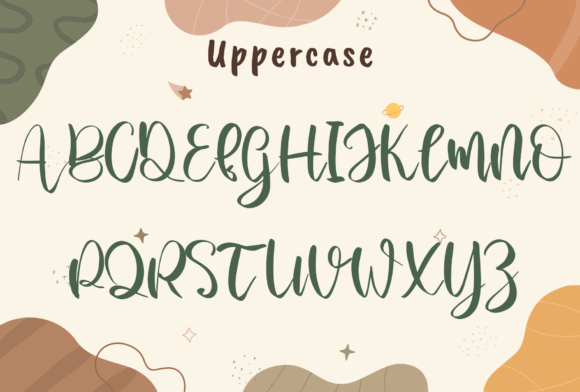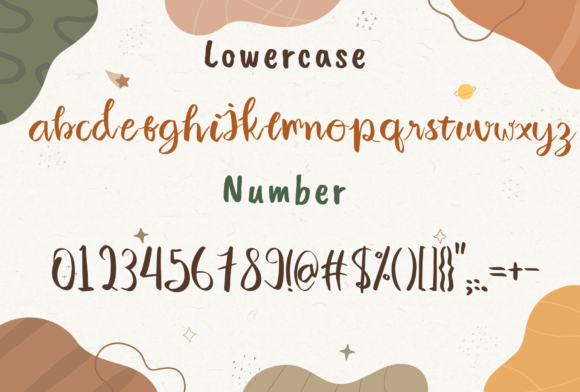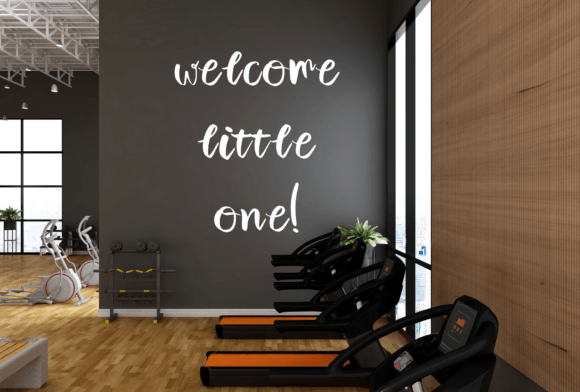
Introduction to Beauty so Good Font
Beauty So Good is a super cute script font with elegant characters and a cursive appearance.
Add it to presentations, educational materials, invitations, or anything that needs unique typography .
Beauty so Good Font offers exceptional quality and versatility, making it a valuable addition to your design toolkit. Whether you’re creating for personal projects or commercial use, Beauty so Good Font delivers professional results.